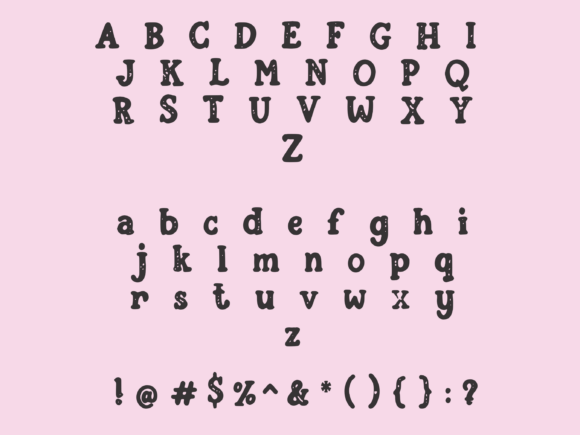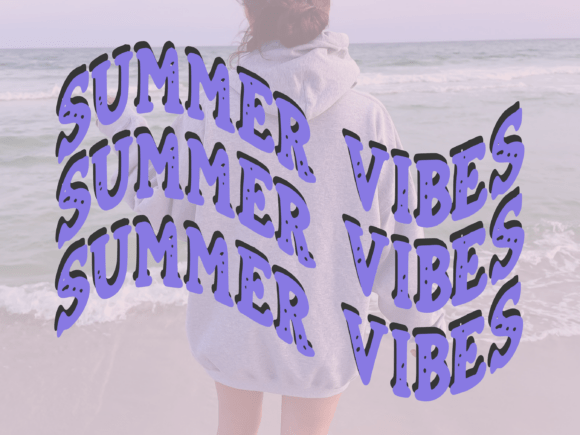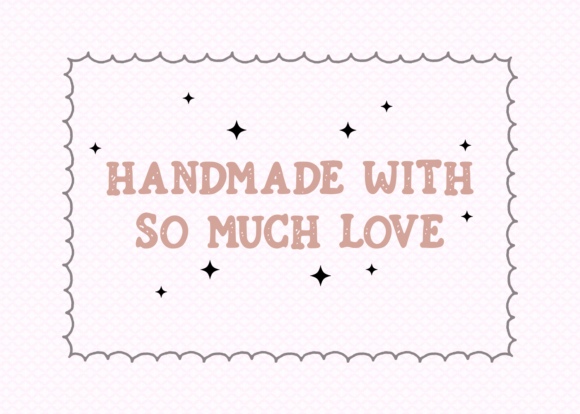
Introducing Creative Mirage Font: Elevate Your Designs with Elegance and Playfulness
In the realm of digital design, fonts play a pivotal role in conveying messages, evoking emotions, and creating lasting impressions. Among the myriad of fonts available, the Creative Mirage Font stands out as a beacon of versatility, style, and creativity. This exquisite display font is designed to cater to a wide spectrum of applications, from greeting cards and headlines to branding and advertising, promising to infuse your projects with a romantic and sophisticated flair.
The Essence of Creative Mirage Font
Creative Mirage is not just a font; it’s an experience. Its versatile nature makes it suitable for various design needs, allowing designers and crafters to explore a plethora of creative avenues. Whether you’re working on a project that requires a touch of elegance, a dash of playfulness, or a blend of both, Creative Mirage Font proves to be an impeccable choice.
Key Features of Creative Mirage Font
- Versatility: One of the standout features of Creative Mirage Font is its incredible versatility. It can seamlessly transition from being a headline in a magazine to a decorative element in a greeting card, making it a valuable addition to any designer’s toolkit.
- Stylish and Creative: With its unique design elements, Creative Mirage Font brings a fresh and creative spin to the world of typography. Its stylish appearance ensures that your designs don’t just communicate a message but do so with flair and personality.
- Playful Display Font: The playful nature of Creative Mirage Font makes it perfect for projects that require a light-hearted and approachable tone. It adds a whimsical touch to any design, making it more engaging and captivating.
Applications of Creative Mirage Font
The applications of Creative Mirage Font are vast and varied. Here are some of the most notable ones:
- Greeting Cards: Add a touch of romance and elegance to your greeting cards with Creative Mirage Font. It’s perfect for Valentine’s Day cards, wedding invitations, and other special occasion greetings.
- Headlines and Titles: Make your headlines pop with Creative Mirage Font. Its stylish and creative design ensures that your titles grab attention and leave a lasting impression.
- Branding and Advertising: For brands looking to make a statement, Creative Mirage Font offers a unique opportunity to stand out. Its playful yet sophisticated design can help brands connect with their audience on a more personal level.
- Digital and Print Media: Whether you’re working on a digital project or a print publication, Creative Mirage Font adapts beautifully, ensuring your designs look stunning across different mediums.
Why Choose Creative Mirage Font?
Choosing the right font for your project can be a daunting task, given the numerous options available. However, Creative Mirage Font offers several compelling reasons to make it your go-to choice:
- Romantic and Exquisite Feel: It adds a romantic and exquisite feel to your designs, making them more appealing and engaging.
- Ease of Use: Creative Mirage Font is easy to integrate into your projects, allowing you to focus on the creative aspects of your design.
- Support for Various Languages: With support for multiple languages, Creative Mirage Font is a versatile tool that can be used in a global context.
Creative Mirage Font is more than just a display font; it’s a creative tool that can elevate your designs to new heights. Its versatility, stylish appearance, and playful nature make it an ideal choice for designers and crafters looking to add a touch of elegance and whimsy to their projects. Whether you’re working on a greeting card, a headline, or a branding campaign, Creative Mirage Font promises to deliver results that are not only visually stunning but also emotionally resonant. So, why wait? Add Creative Mirage Font to your creative arsenal today and watch your designs transform into captivating works of art.